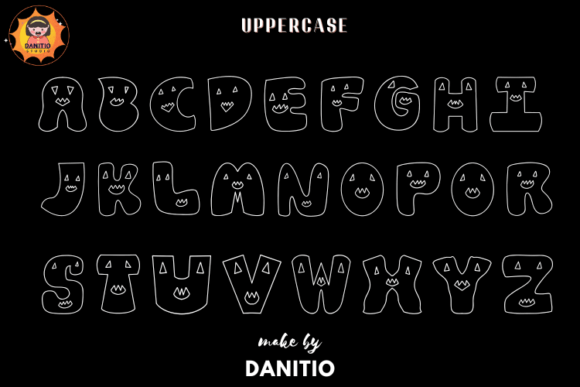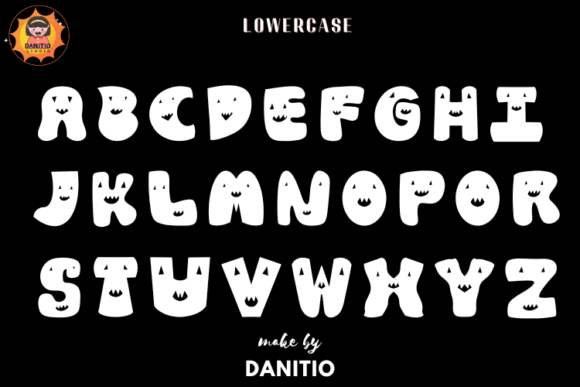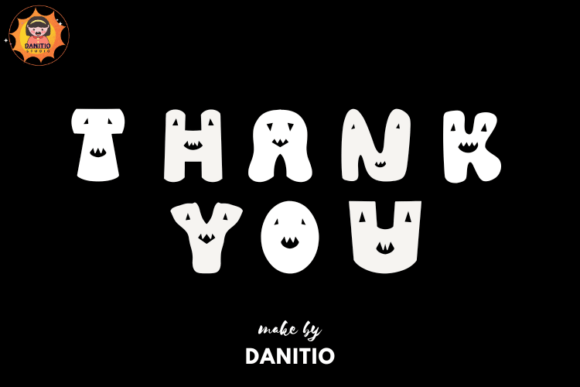
Halloween Font: A Groovy and Spooky Display Font for Designers and Crafters
Are you looking for a font that will add a touch of spookiness and grooviness to your designs? Look no further than the Halloween Font! This display font is perfect for designers and crafters who want to create eye-catching and attention-grabbing projects. In this article, we’ll explore the features and benefits of the Halloween Font, and provide you with some inspiration for using it in your designs.
What is Halloween Font?
Halloween Font is a unique and creative display font that is perfect for creating spooky and fun designs. Its groovy and eerie style makes it instantly recognizable, and it’s sure to grab attention. Whether you’re designing a comic book layout, creating a social media post, or making a craft project, this font is sure to add a touch of personality and flair.
Key Features of Halloween Font
- Groovy and Spooky Style: The Halloween Font has a unique and eye-catching style that’s perfect for creating spooky and fun designs.
- Display Font: This font is designed to be used as a display font, making it perfect for headlines, titles, and other attention-grabbing elements.
- Instantly Recognizable: The Halloween Font is sure to grab attention and make your designs stand out.
- Versatile: This font can be used for a wide range of projects, from comic book layouts to social media posts.
Benefits of Using Halloween Font
So why should you use the Halloween Font in your designs? Here are just a few benefits:
- Adds a Touch of Personality: The Halloween Font adds a unique and playful touch to your designs, making them more engaging and eye-catching.
- Perfect for Spooky and Fun Designs: If you’re creating designs for Halloween or other spooky occasions, this font is a perfect choice.
- Easy to Read: Despite its playful style, the Halloween Font is easy to read, making it perfect for use in headlines and titles.
- Great for Branding: The Halloween Font can be used to create a unique and memorable brand identity.
Inspiration for Using Halloween Font
So what can you create with the Halloween Font? Here are a few ideas to get you started:
- Comic Book Layouts: Use the Halloween Font to create eye-catching comic book layouts that will grab readers’ attention.
- Online Games: Add a touch of spookiness and fun to your online games with the Halloween Font.
- Cards and Invitations: Create spooky and fun cards and invitations for Halloween and other occasions.
- T-Shirts and Hats: Use the Halloween Font to create eye-catching designs for t-shirts, hats, and other apparel.
- Posters and Flyers: Create eye-catching posters and flyers for movies, events, and other promotions.
- Social Media Posts: Use the Halloween Font to create eye-catching social media posts that will grab attention and drive engagement.
Tips for Using Halloween Font
Here are a few tips for using the Halloween Font in your designs:
- Use it Sparingly: Because the Halloween Font is so eye-catching, it’s best to use it sparingly to avoid overwhelming your design.
- Pair it with Other Fonts: Pair the Halloween Font with other fonts to create a unique and interesting contrast.
The Halloween Font is a unique and creative display font that’s perfect for designers and crafters who want to add a touch of spookiness and grooviness to their designs. With its eye-catching style and versatility, it’s sure to be a hit with designers and crafters of all skill levels. So why not give it a try and see what kind of amazing designs you can create?